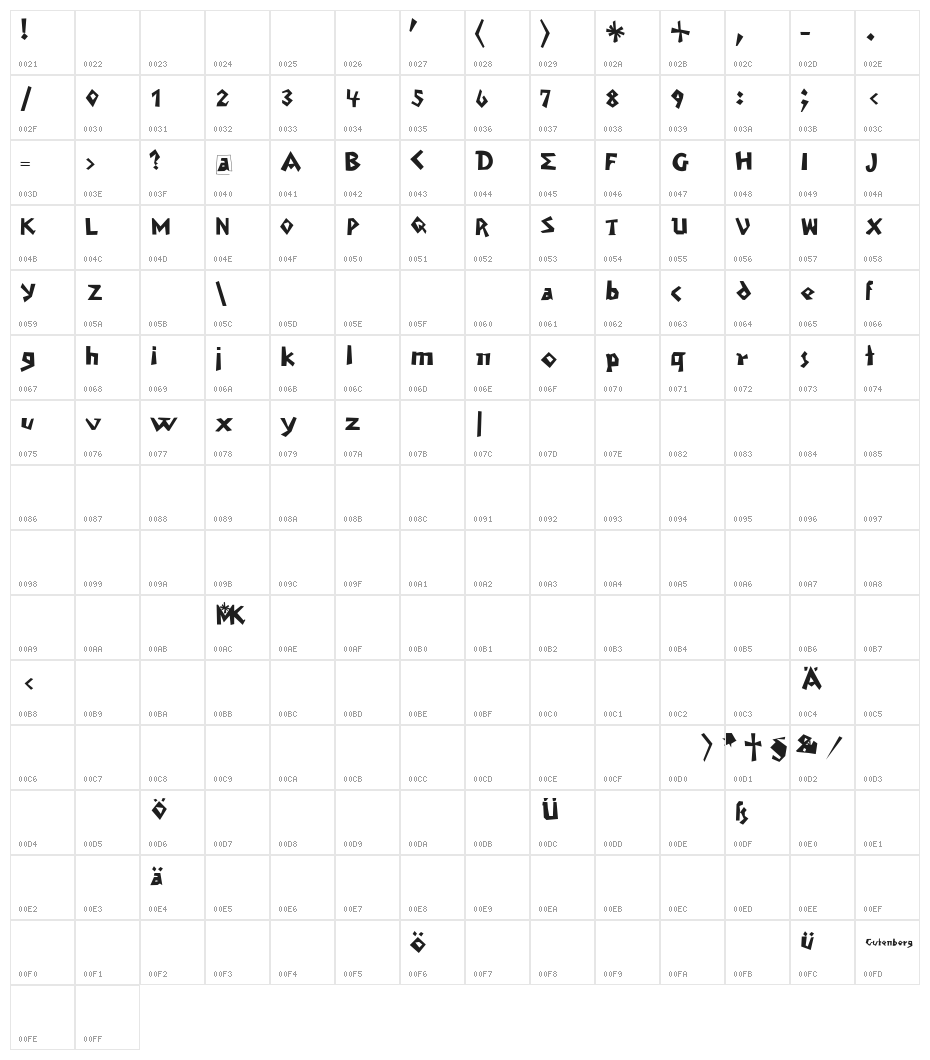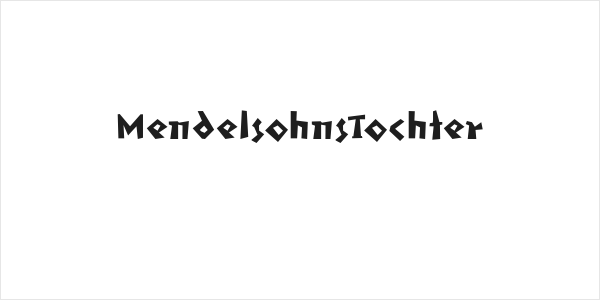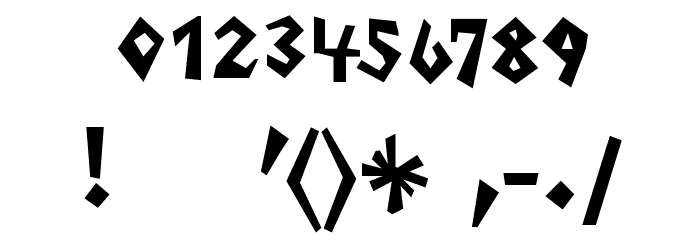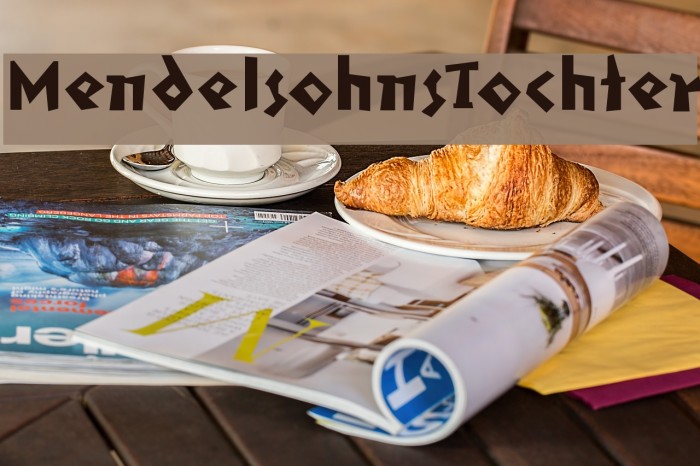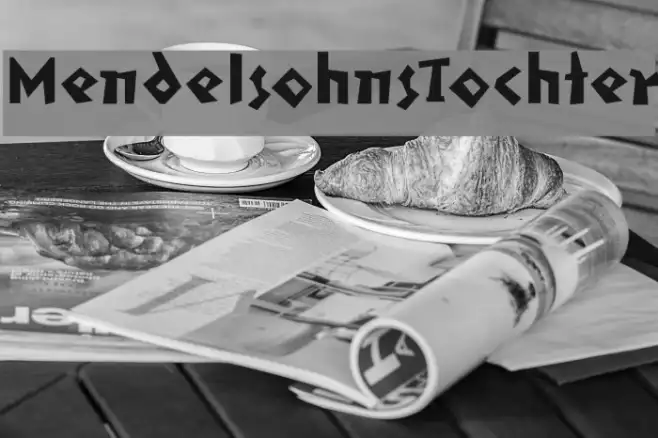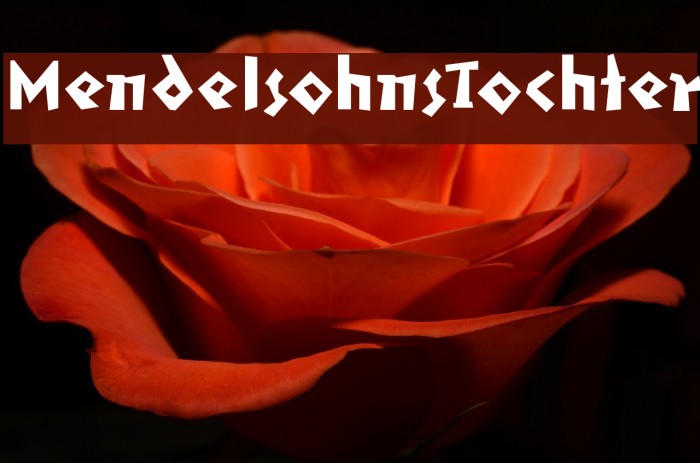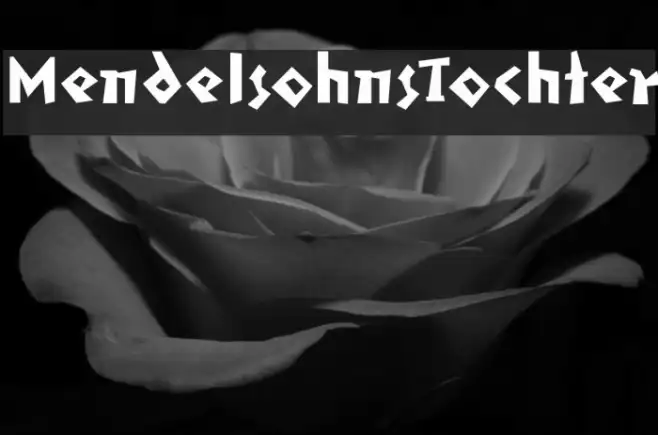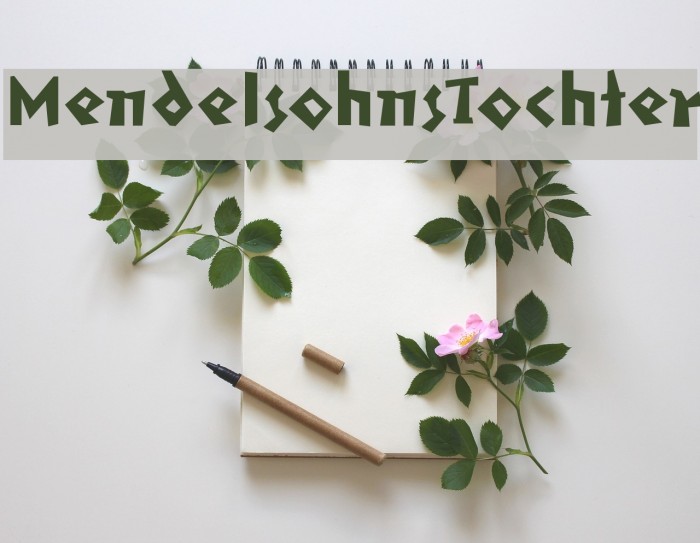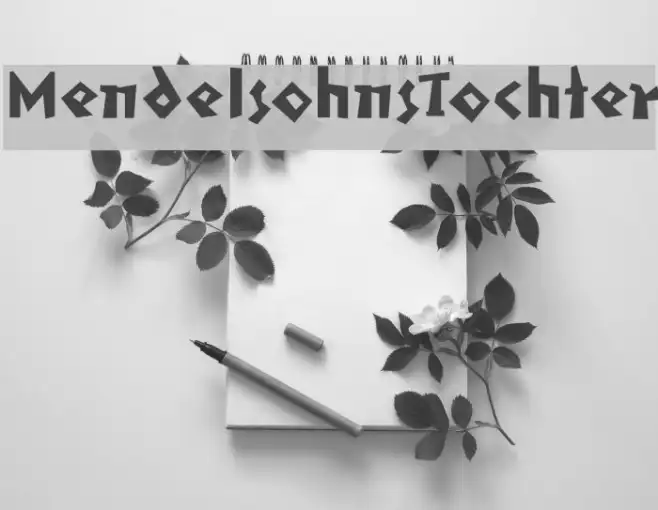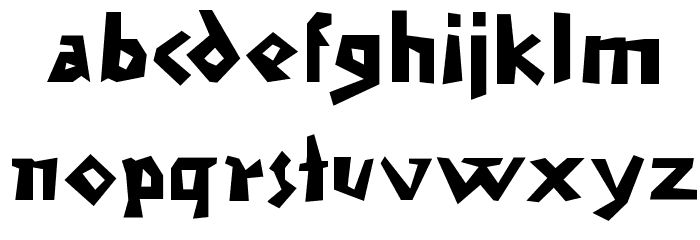
MendelsohnsTochter Font
MendelsohnsTochter Description
This font features a bold and dynamic style with sharp, angular edges and a playful, irregular form. The characters are designed with a sense of movement and energy, making them stand out with their unique geometric shapes. The uppercase and lowercase letters maintain a consistent style, with each character exhibiting a distinct personality. The numbers and special characters follow the same design principles, ensuring a cohesive look across all elements. This font's boldness and distinctive style make it ideal for projects that require a strong visual impact.